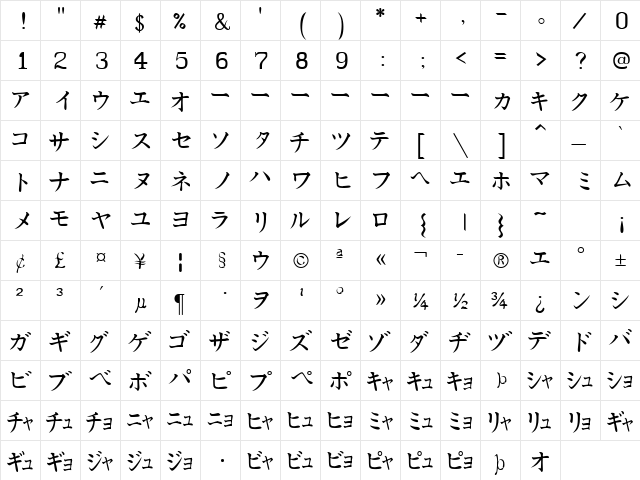
JKATAK01 Regular
Design Context for JKATAK01 Typeface
JKATAK01 offers clean, dependable letterforms without strong stylistic allegiance, making it a practical choice for designers who need flexibility.